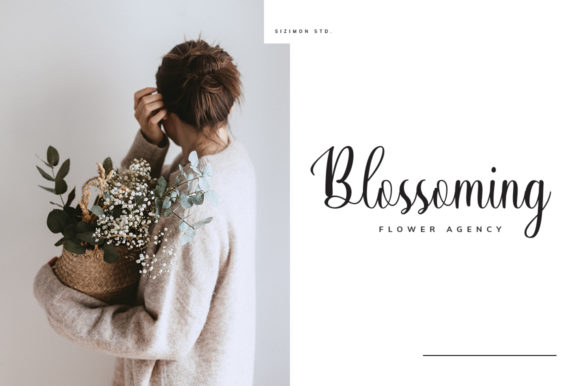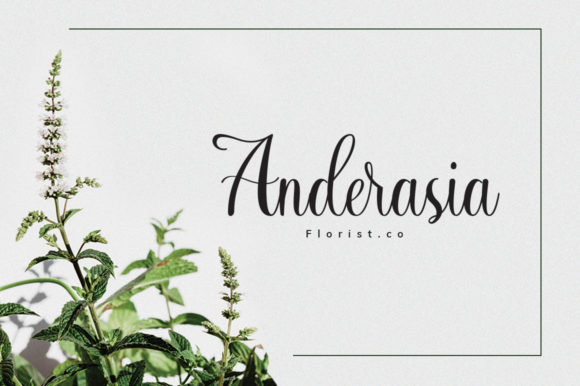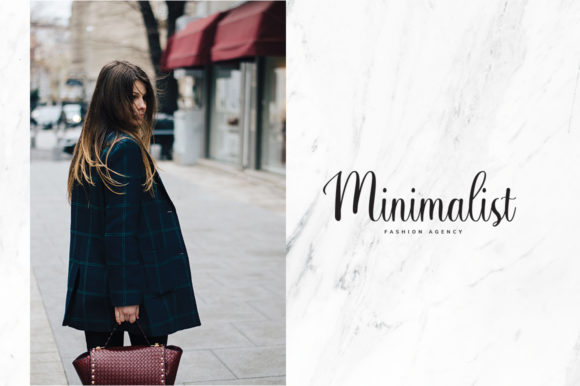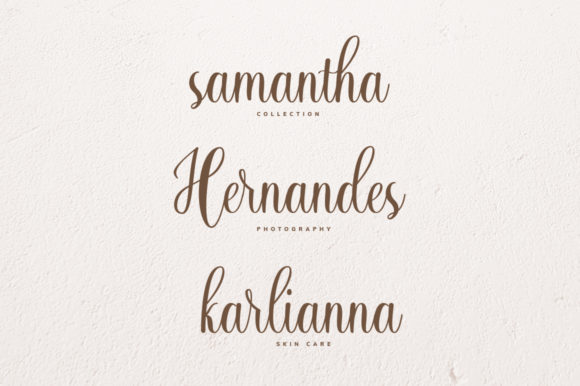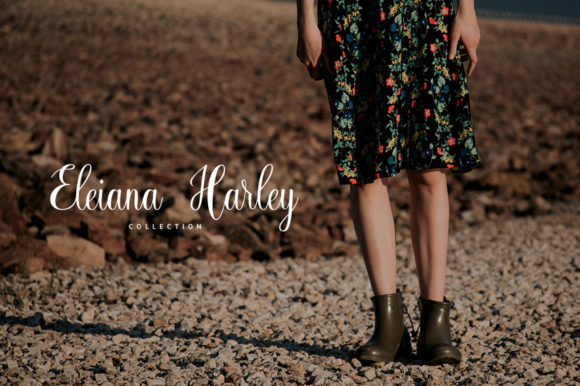
HomeScript FontsHarsley Font Script Fonts Harsley Font FacebookXPinterestWhatsApp Harsley Font Poster 2 Harsley Font Poster 3 Harsley Font Poster 4 Harsley Font Poster 5 Harsley Font Poster 6 About Harsley Font Harsley is a beautiful and light script that will add a fun feel to any design. DOWNLOAD ON CREATIVE FABRICAThis font is sold and delivered by Creative Fabrica. Font Canyon may earn a commission if you buy through this link. People also explored Black Caramel Font Mangifera Font Bird Day Font Strongboy Rounded Font Wondiletta Font Sweety Sweet Font Hazelnuts Font Summer Font Dandelion Font 418 0 TagsHarsley Font Previous articleTaufy FontNext articleSafiar Font LEAVE A REPLY Cancel reply Comment: Please enter your comment! Name:* Please enter your name here Email:* You have entered an incorrect email address! Please enter your email address here Website: Save my name, email, and website in this browser for the next time I comment. Personal Use Free Yumail Personal Use Free Read more about this font Blue Highway Personal Use Free Read more about this font Cleopatra Font Personal Use Free Read more about this font Whitelight Personal Use Free Read more about this font BLOG How to Install and Use Fonts on Windows, macOS, and Web Projects How to Install and Use Fonts on Windows, macOS, and Web Projects Fonts are a crucial part of design and branding. Whether you’re designing a... How to Cut Any Font on Cricut: Convert a Font to SVG (Free) Free Fonts Risk: Why Free Fonts Can Be Dangerous for Designers Using Fonts in Digital Marketing: Tips to Strengthen Your Brand Identity